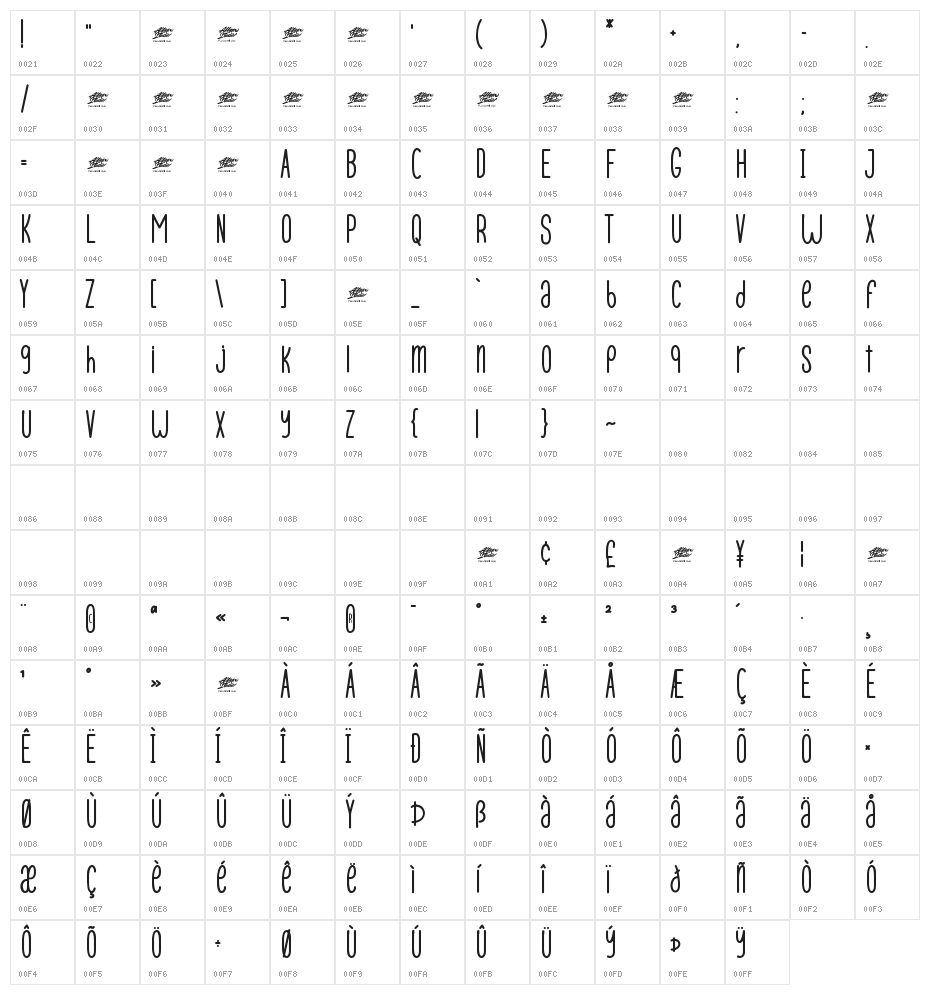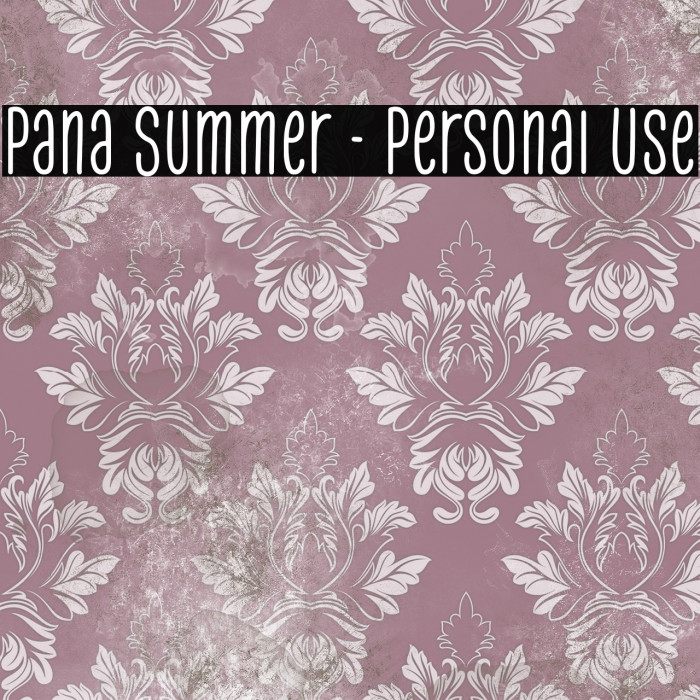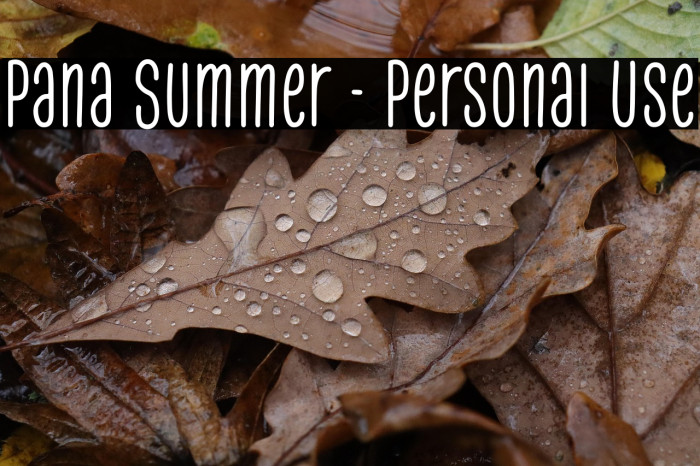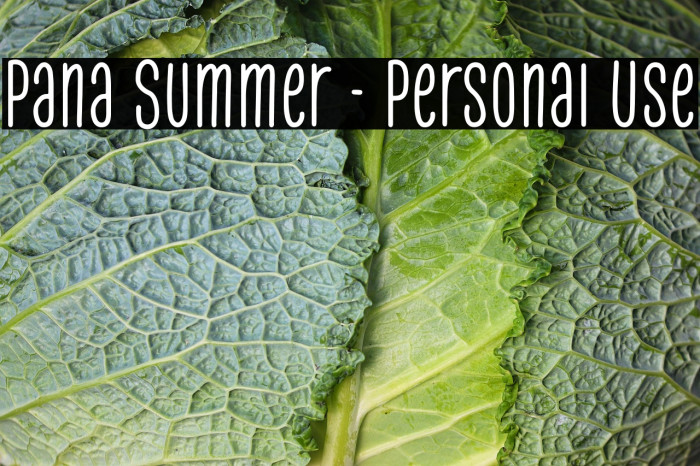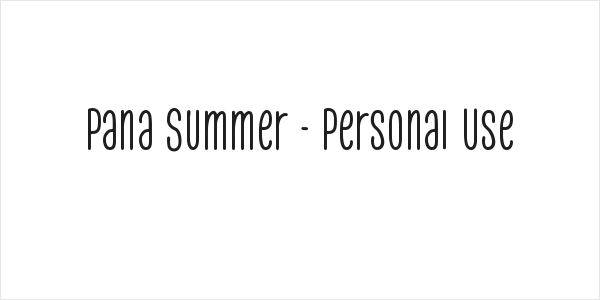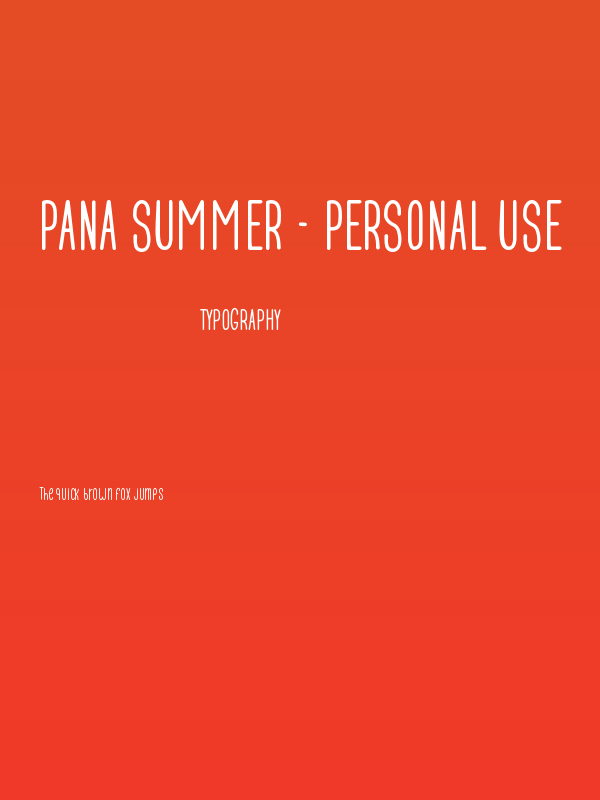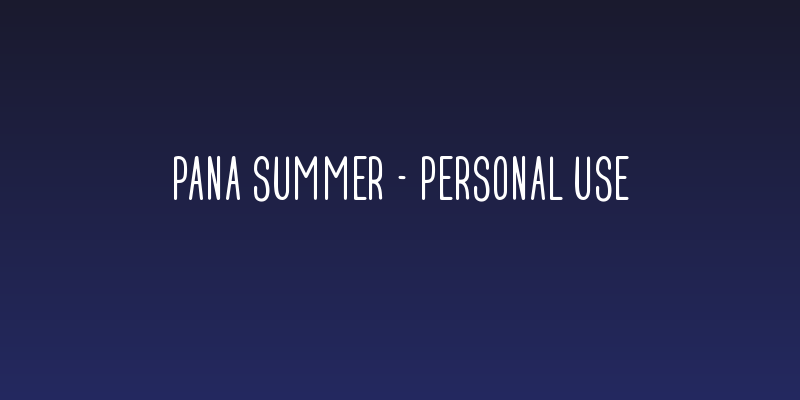
Pana Summer - Personal Use Font
Pana Summer - Personal Use Description
This font features a playful and casual handwritten style with elongated, narrow characters. The letters are slightly rounded, giving a friendly and approachable feel. The uppercase and lowercase letters maintain a consistent height, contributing to a uniform appearance. The numbers and special characters follow the same design principles, ensuring cohesion across all elements. The overall look is modern and informal, making it suitable for projects that require a touch of personality and warmth. The strokes are consistent in thickness, providing a clean and polished look without any high contrast. This font is ideal for creative projects where a relaxed and inviting tone is desired.
| Overall Style | Modern, Casual |
| Use Case | Headlines, Logos, Informal text |
| Proposed Projects | Greeting cards, invitations, personal blogs, children's books, and casual branding materials. |